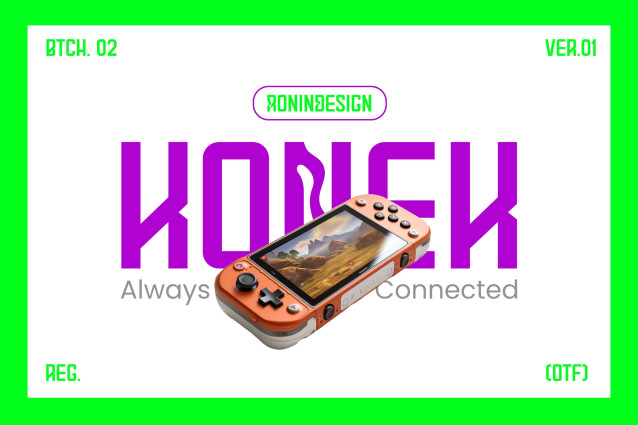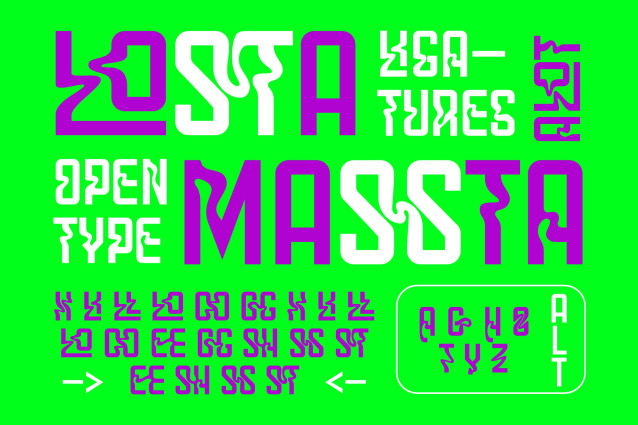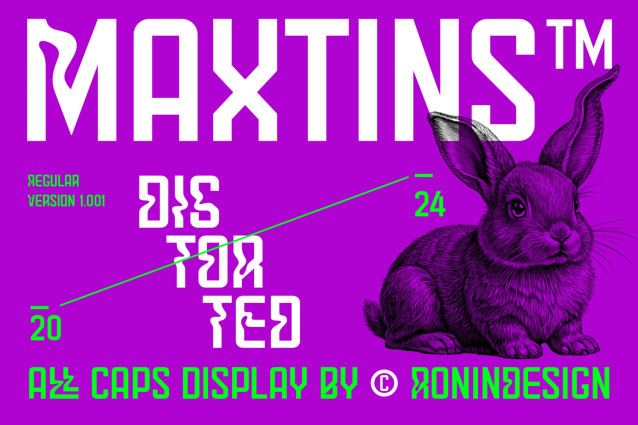
Maxtins Font
Maxtins Font is a bold, futuristic display font that commands attention with its distorted and edgy style. Perfect for projects that need a modern, high-tech vibe, Maxtins combines sharp angles and unique letterforms to create a striking visual impact. This all-caps typeface is ideal for logos, headlines, posters, and any design that aims to stand out in a crowded digital space. Whether you’re working on a cyberpunk project, a tech brand, or a cutting-edge event, Maxtins delivers a powerful, contemporary feel.